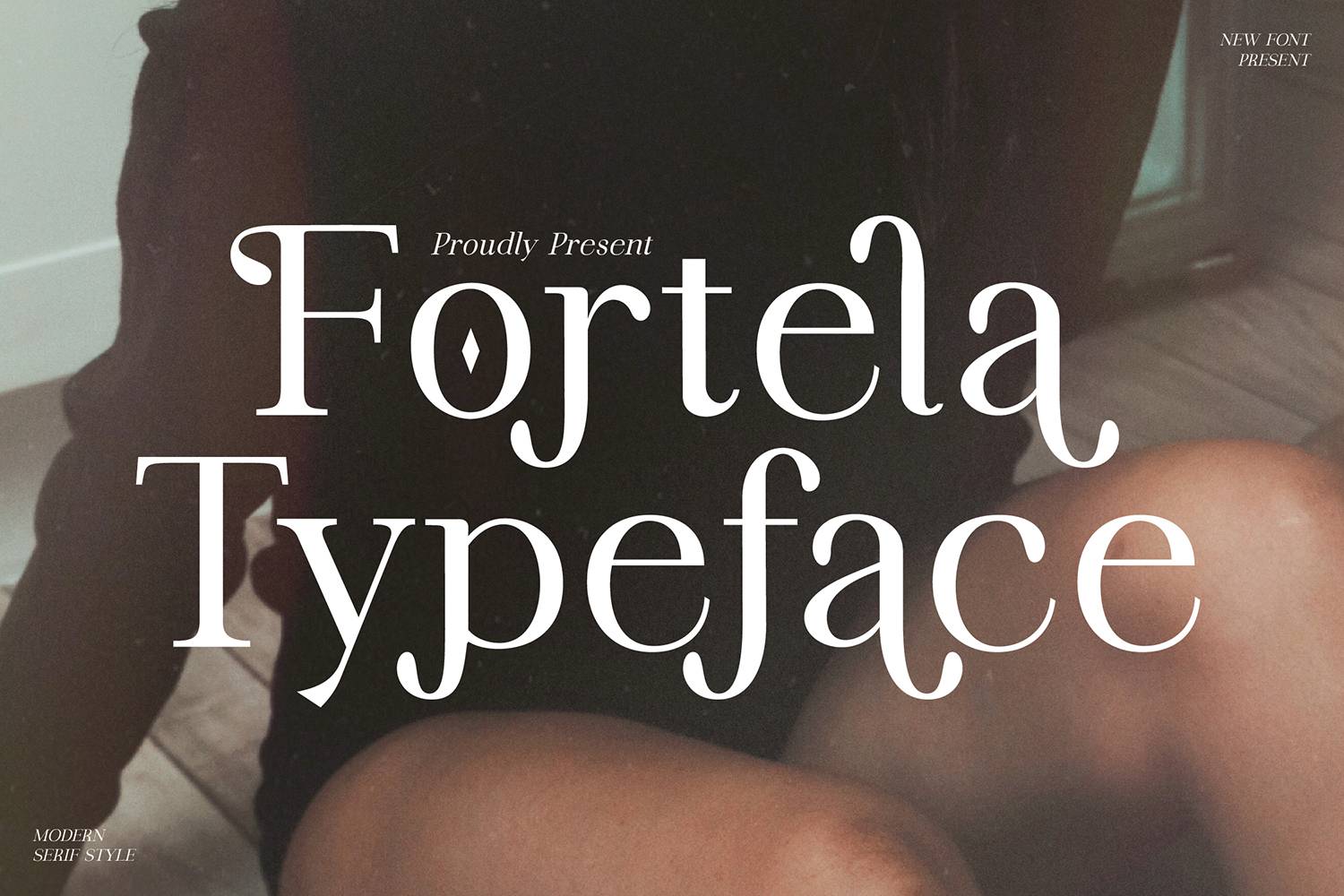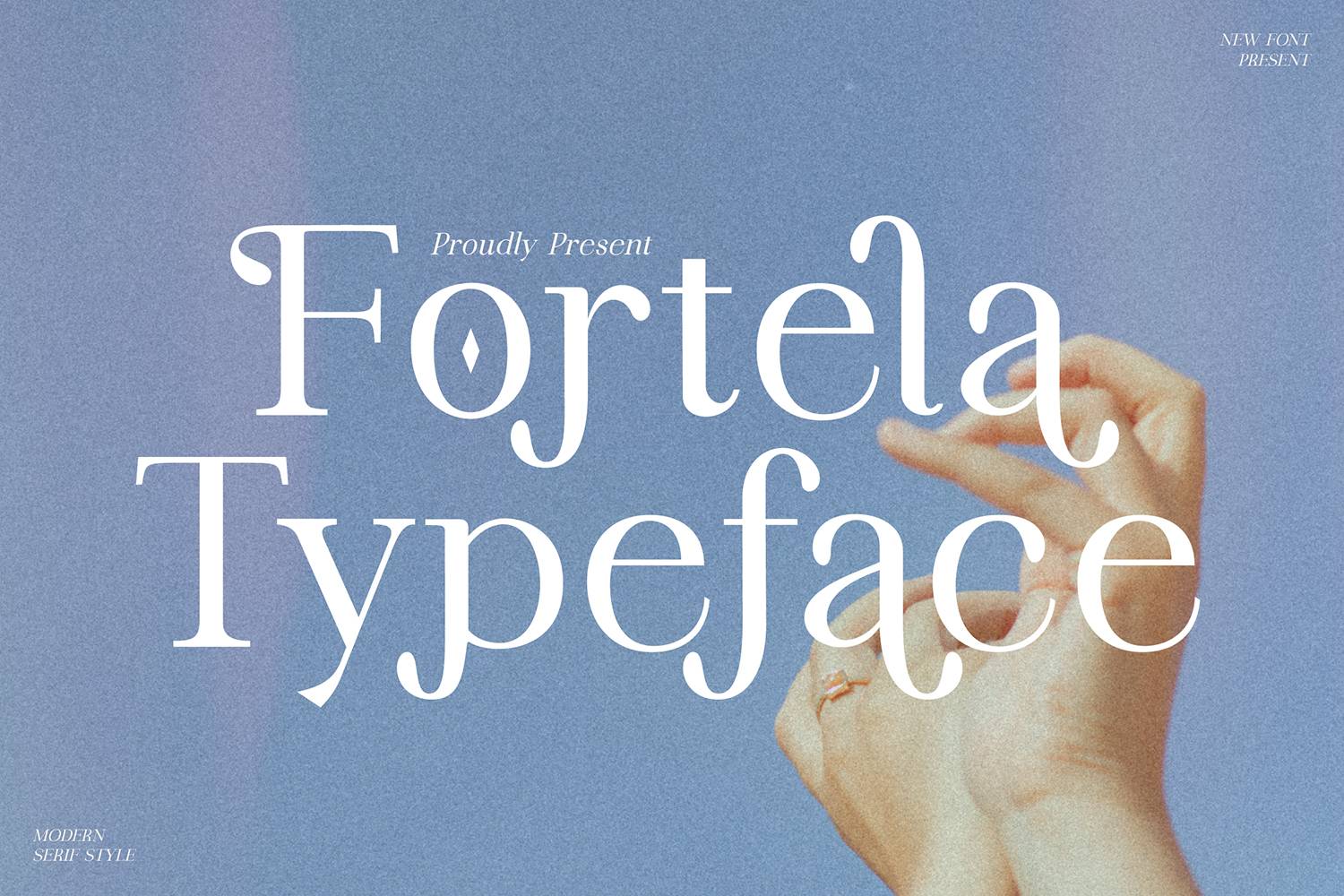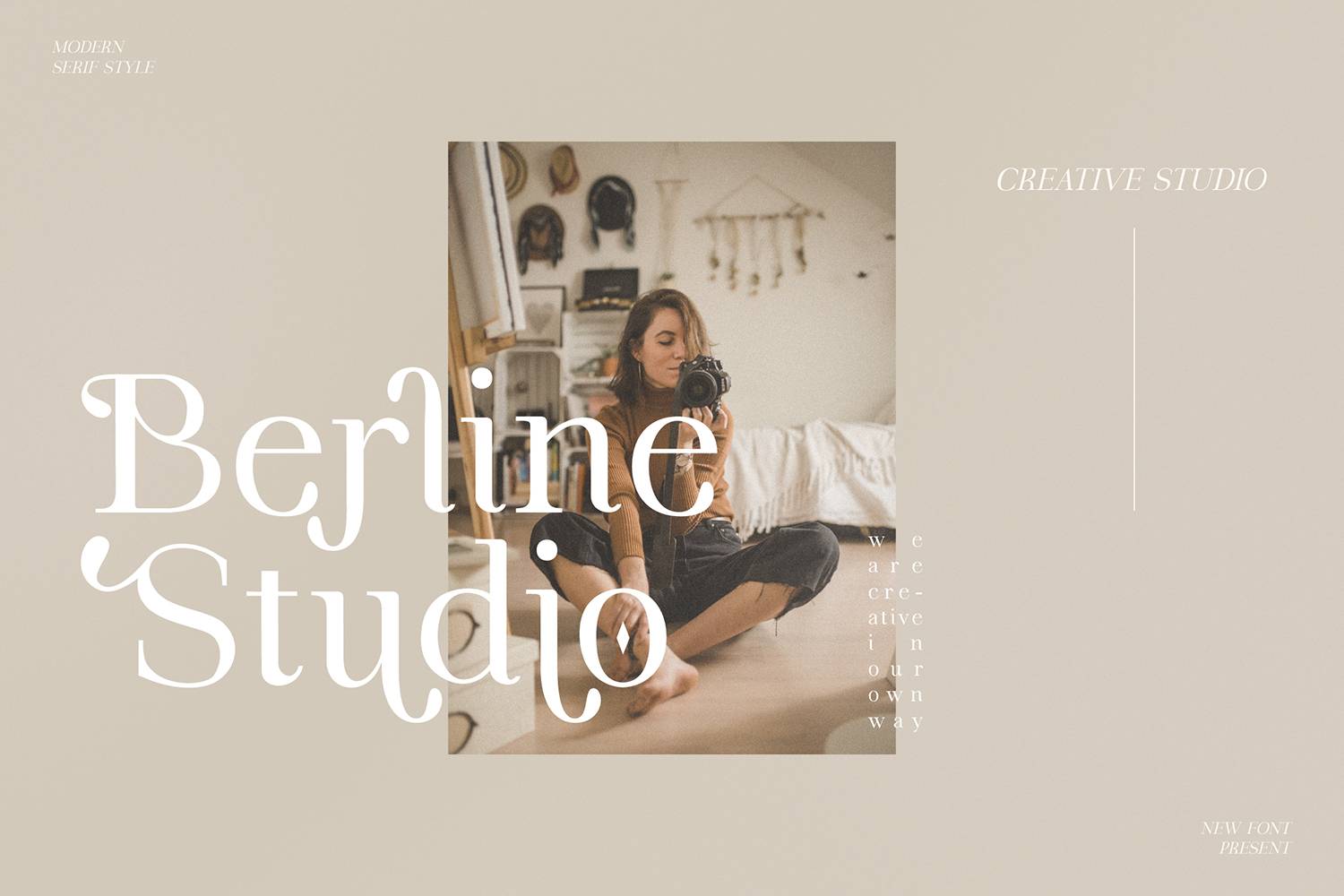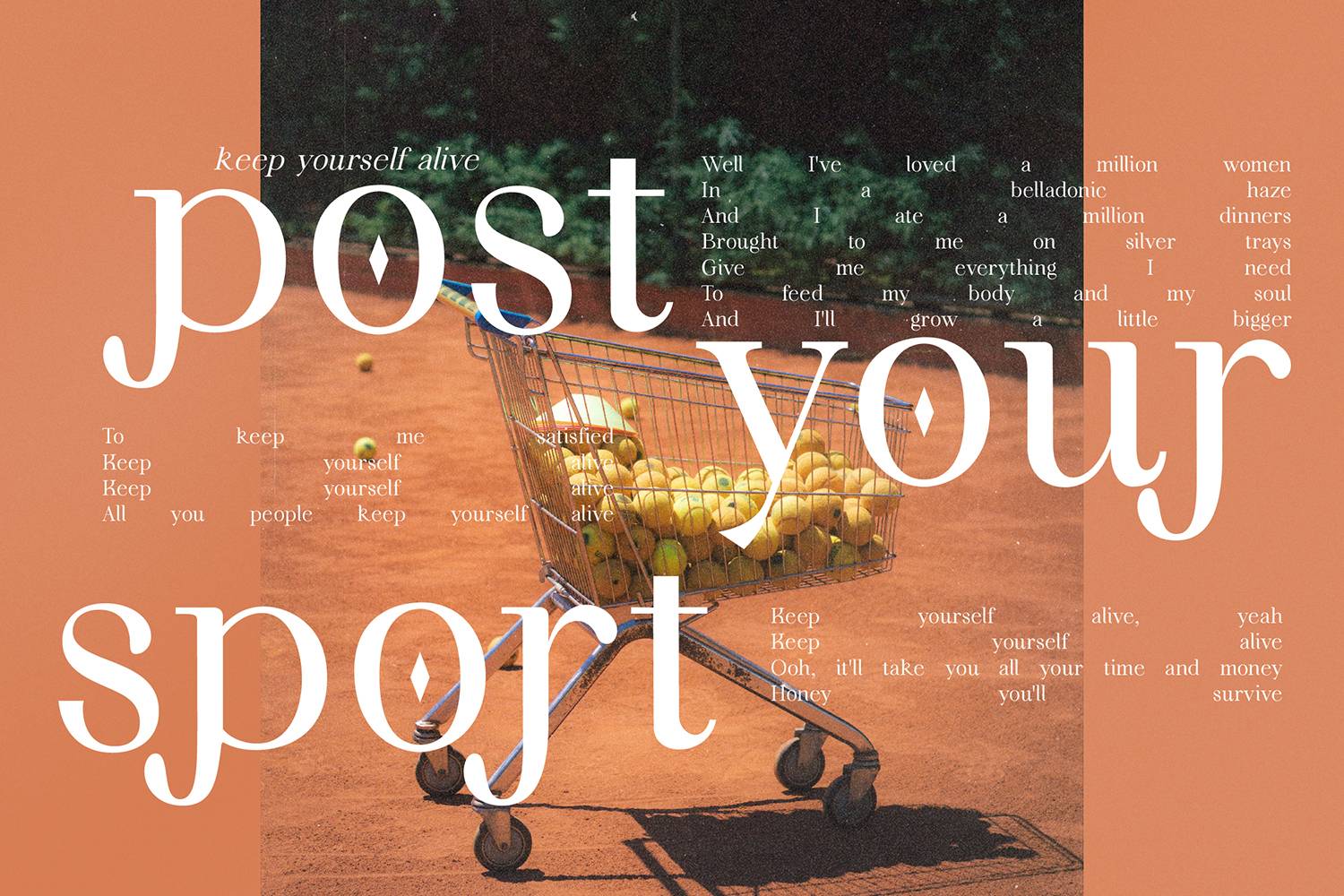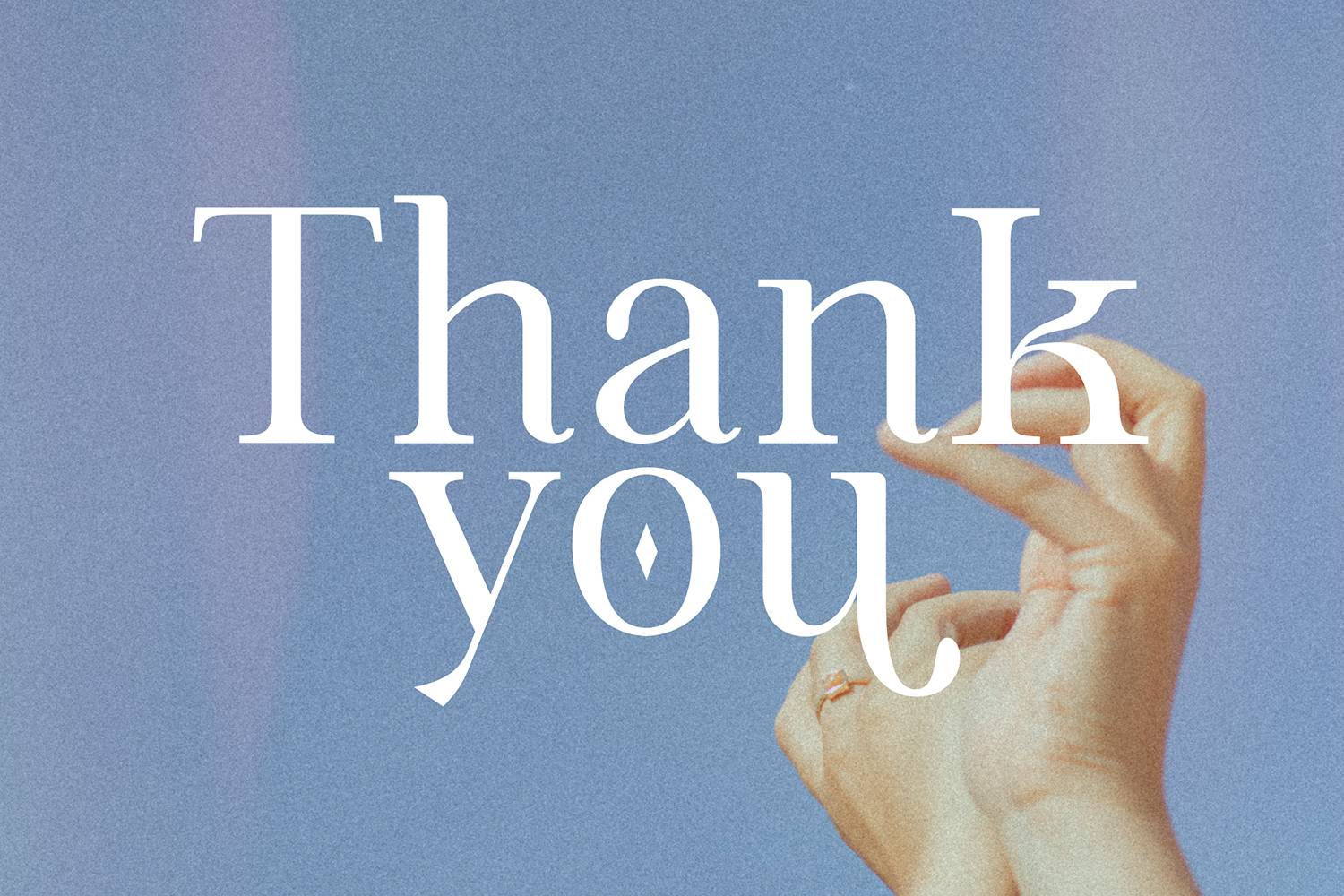
Fortela Typeface is a refined serif font with a classic and elegant feel, featuring high contrast between thick and thin strokes and delicate, bracketed serifs. Its tall x-height and clean letterforms lend it both readability and sophistication, making it ideal for upscale branding, editorial design, and stylish headlines. This font conveys a timeless, professional mood suited for luxury and formal contexts.
Fortela Typeface Font
About Fortela Typeface Font